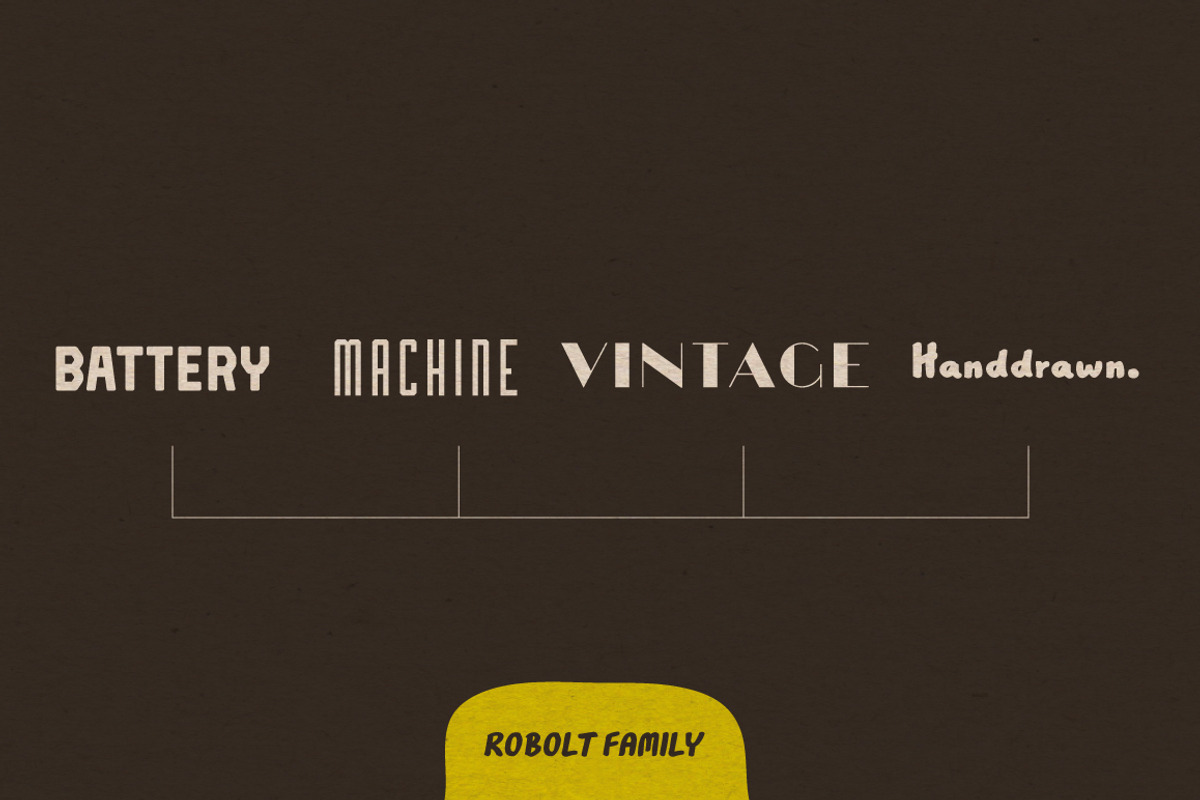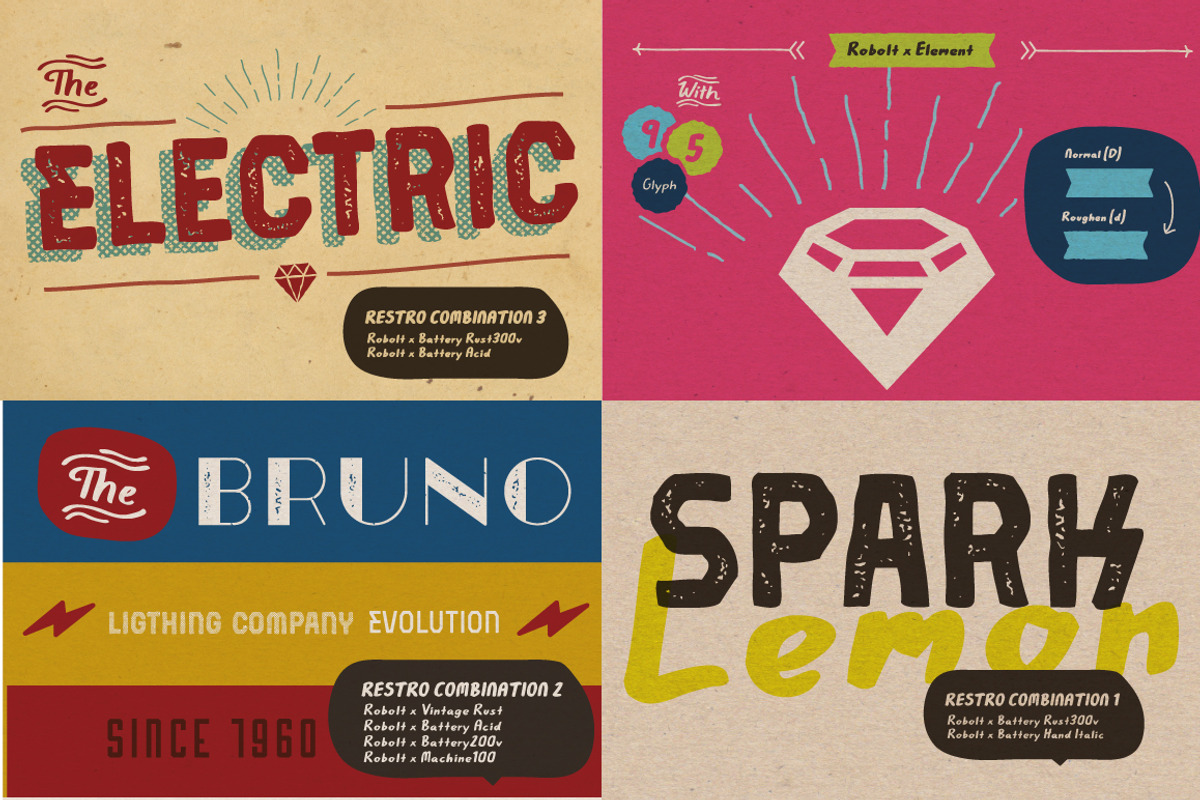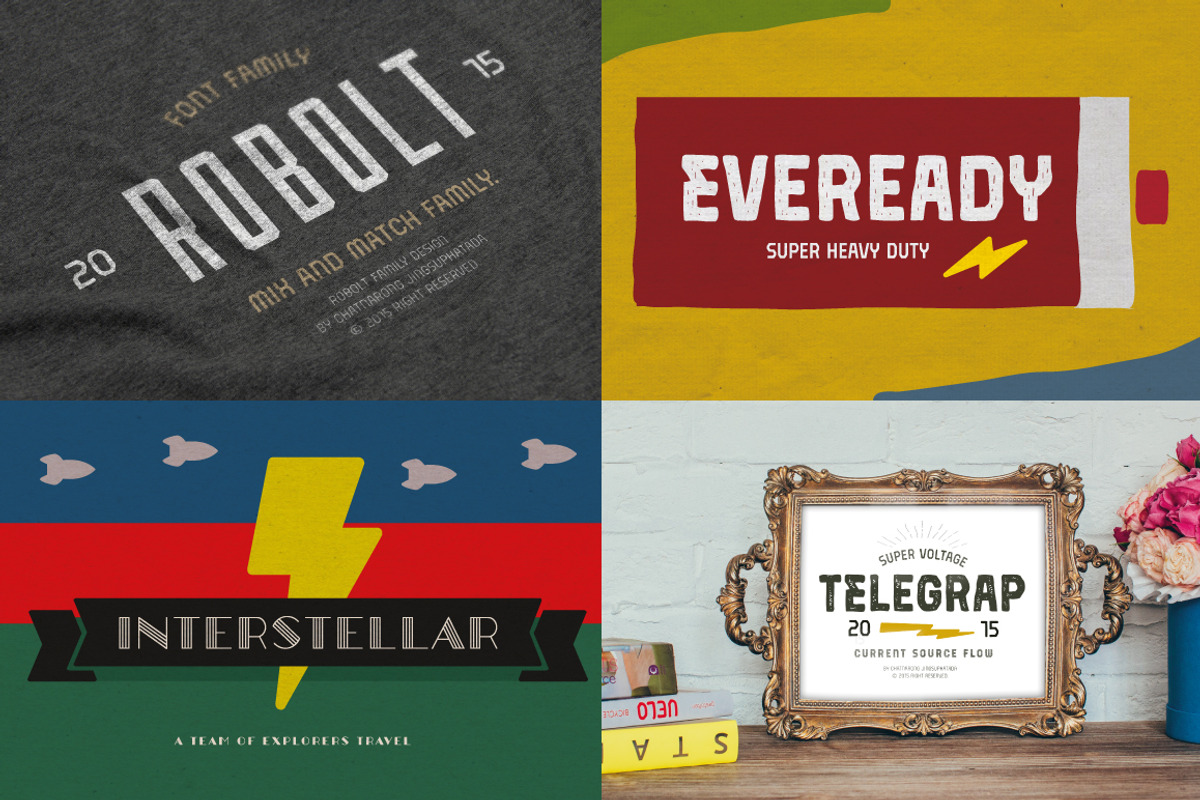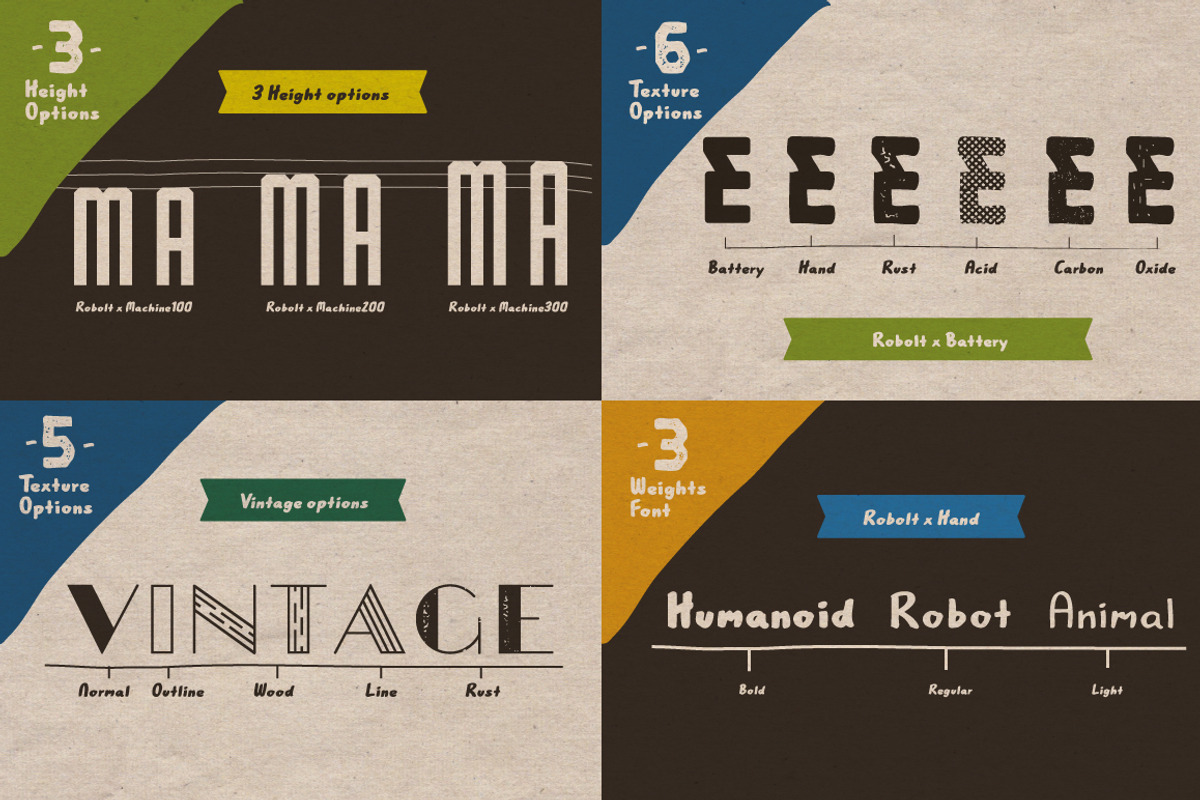
Robolt Font
Robolt Font by Typesketchbook Foundry is a font selected for branding, posters, packaging, typography.
Why Robolt Font is worth a look
Robolt Font by Typesketchbook Foundry fits naturally into Branding, posters, packaging, typography.